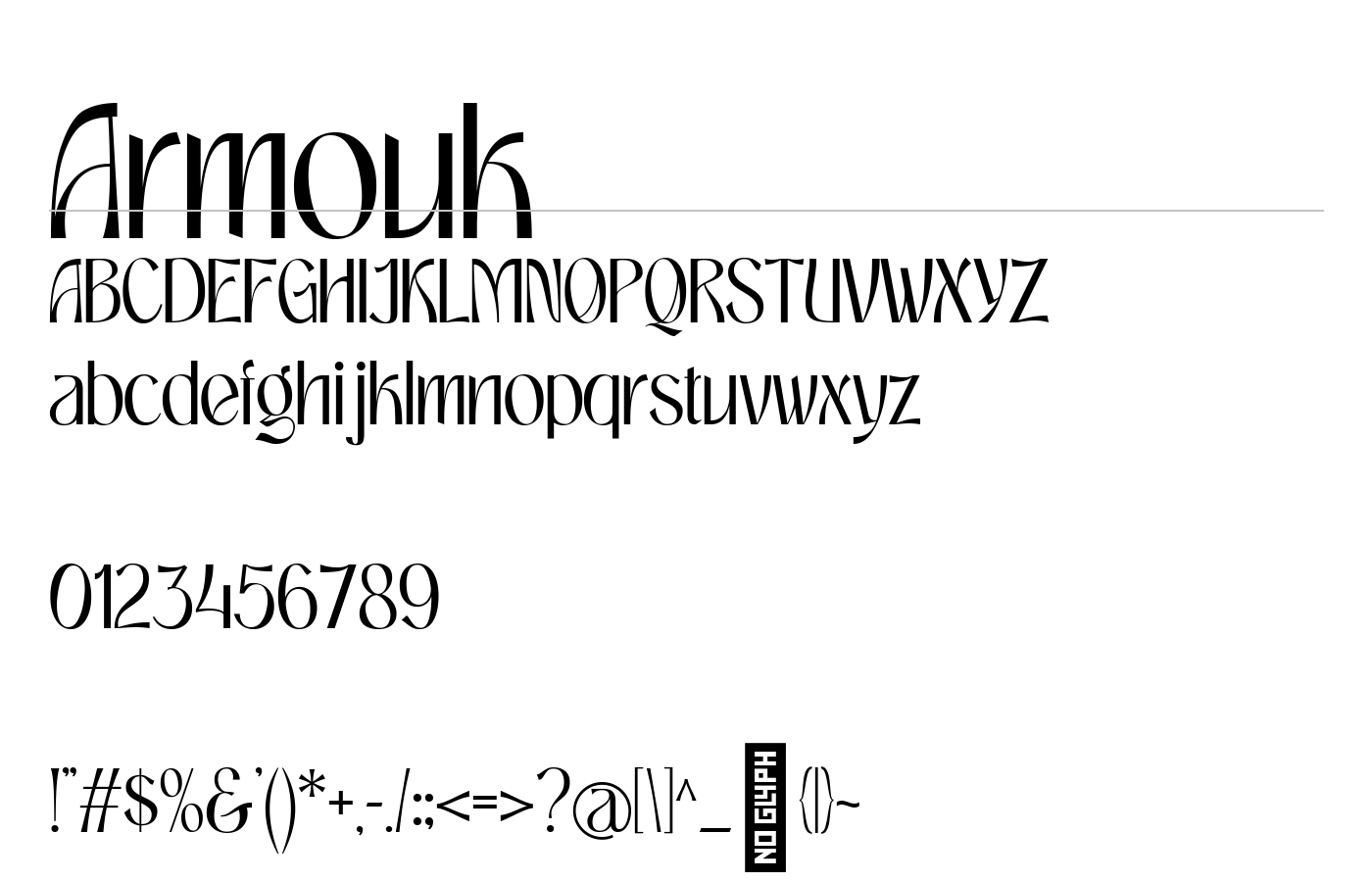
Armouk is a distinctive serif font with a modern and artistic flair, characterized by its tall, narrow letterforms and high contrast between thick and thin strokes. Its sharp, elegant serif details and unique shapes give it a sophisticated yet edgy personality, making it ideal for creative branding, editorial headlines, and fashion-focused designs. This font works best where a stylish, contemporary look is desired, adding a touch of refinement and individuality to any project.
Armouk Font
About Armouk Font